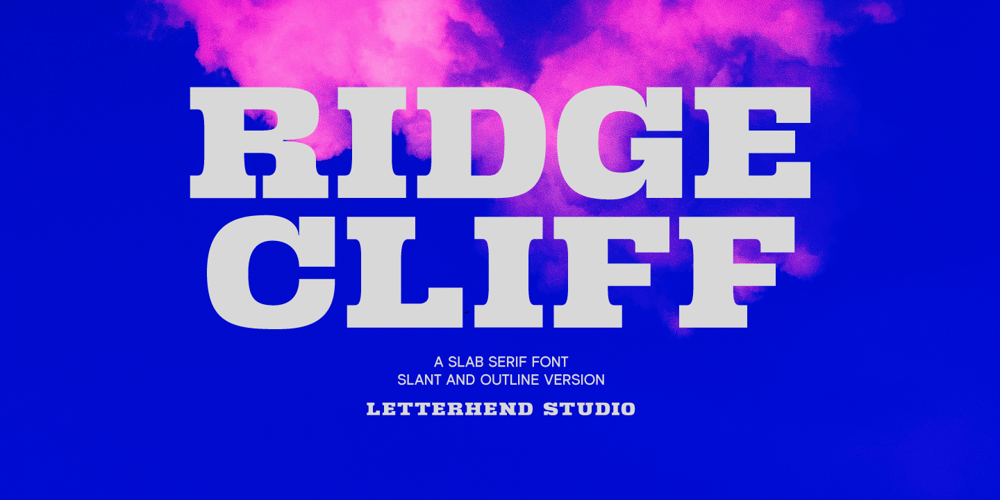
Ridge Cliff Font Family was designed by Hendry Juanda and published by Letterhend. Ridge Cliff contains 4 styles and family package options. Ridge Cliff is a slab serif typeface with strong look and feel.This type of font perfectly made to be applied especially in logo, headline, signage and the other various formal forms such as invitations, labels, logos, magazines, books, greeting / wedding cards, packaging, fashion, make up, stationery, novels, labels or any type of advertising purpose.Features : uppercase & lowercase numbers and punctuation multilingual PUA encoded We highly recommend using a program that supports OpenType features and Glyphs panels like many of Adobe apps and Corel Draw, so you can see and access all Glyph variations.